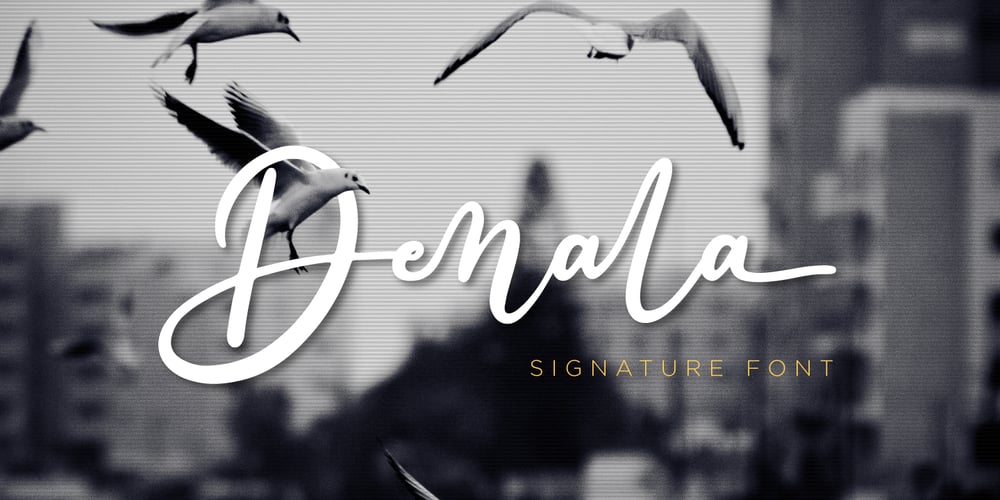
Denala
Denala font
Denala Font Family was designed by Fadli Ramadhan Iskandar and published by Attype Studio. Denala contains 1 styles and family package options. Denala is a delicate signature font with ending swash. Fall in love with its incredibly versatile style and use it to create spectacular designs!Denala is perfect for branding, logo, invitation, stationery, social media post, product packaging, merchandise, blog design, game titles, cute style design, Book/Cover Title and more.What’s Included :- Ending Swash- Ligatures- Multilingual Support – Made it into separated file to make it easier to use by beginner & separated file user can use the font with software which doesn’t accept open type features.